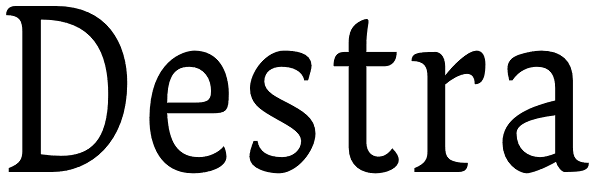
Destra
Destra is a contemporary, narrow serif family, suitable to save space and legible at small sizes. Its shapes are the result of a mix of styles. "Destra" is the Portuguese word for "right hand". The font has several OT features - fractions, old...